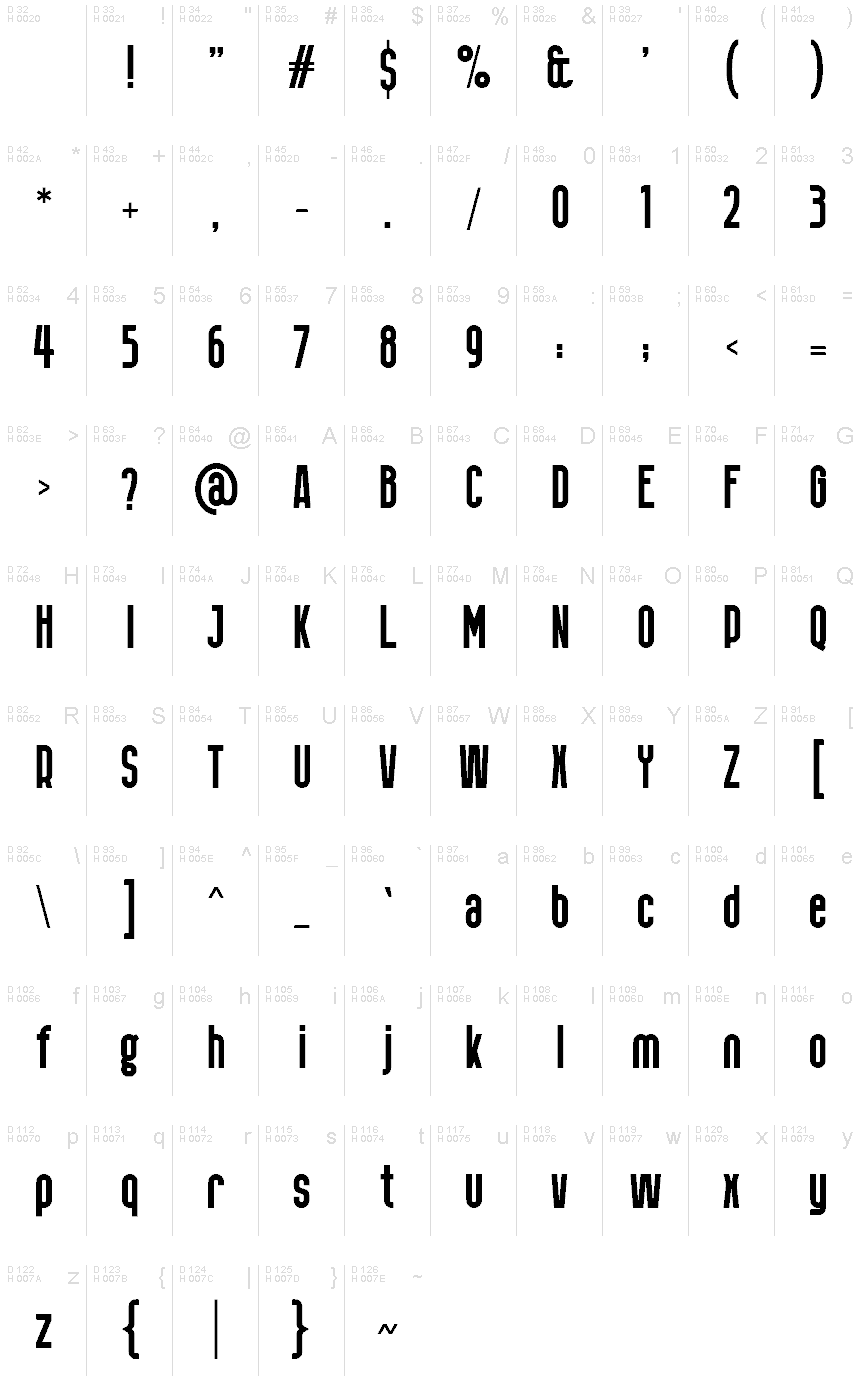
HURSY
Hursy font is a free sans serif font designed by Gilang Ternadho. With the structured and assertive appearance proper to modernist designs, its geometric shapes appear neat and precise. The condensed letters also reflect an industrial style that can be extremely useful when handling short texts in important projects.
Choose this font for headlines, magazine covers, book titles, album art design projects, branding presentations, invitations or greeting cards. You could even use them for description texts on product packaging related to fashion apparels or food and drinks.